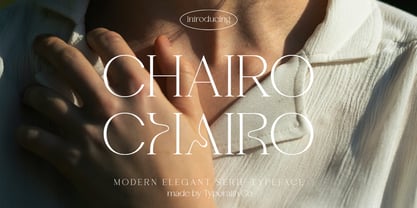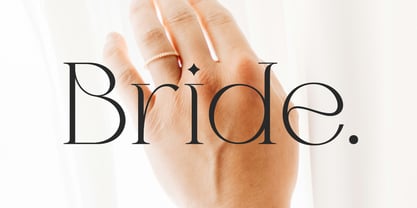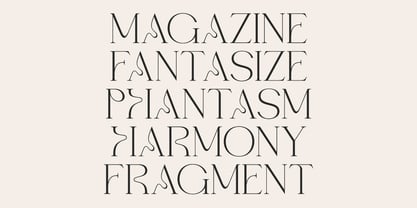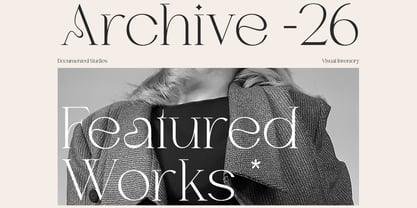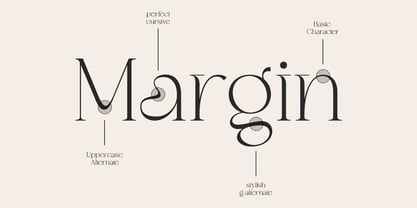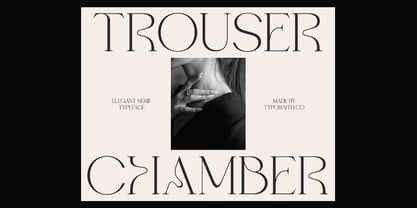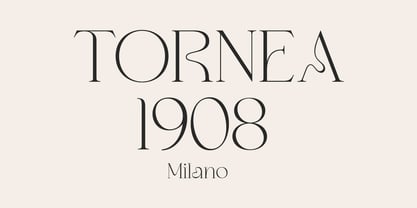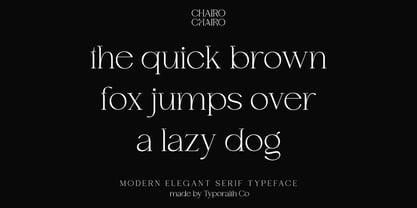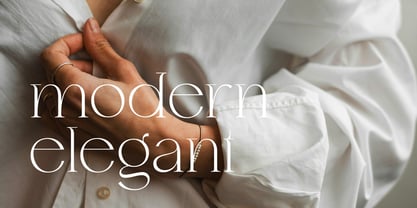
Hola Chairo
by Typoraith Co
The Hola Chairo Font Family was designed by Rendy Riyananda and published by Typoraith Co. Hola Chairo contains 1 styles. More about this family
Chairo is a modern elegant serif typeface crafted with refined details, graceful curves, and distinctive stylistic forms that create a truly luxurious and sophisticated visual character. Each letter is carefully designed to bring a high-end aesthetic, making it the perfect choice for designers who want a premium and contemporary look in their projects. What’s Included: Chairo Regular Stylish Alternates Uppercase & Lowercase Numerals & Punctuation Multilingual Support Features: Modern elegant serif style High-fashion inspired shapes Unique artistic alternates Ideal for luxury and editorial aesthetics Chairo is designed for creators who seek a perfect blend of classic elegance and modern refinement. Its beautifully shaped characters elevate any design, making it look more polished, stylish, and professional.
Designers: Rendy Riyananda
Foundry: Typoraith Co